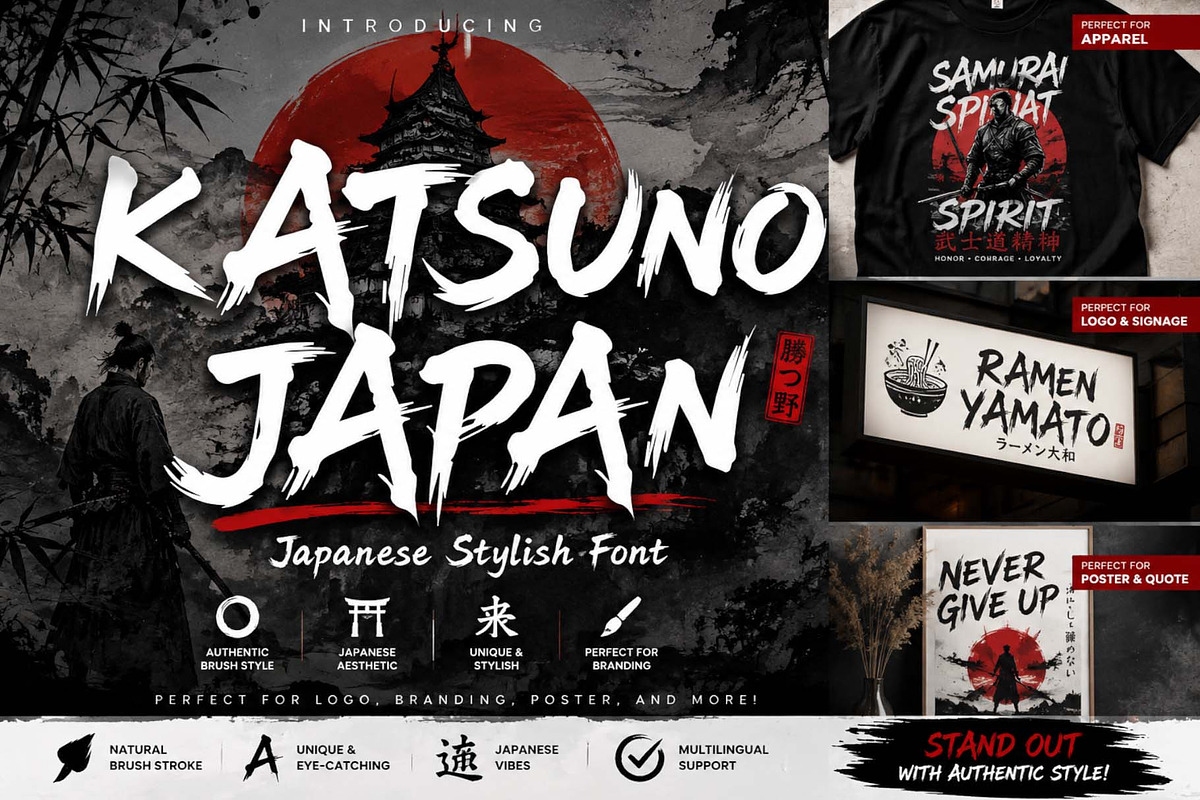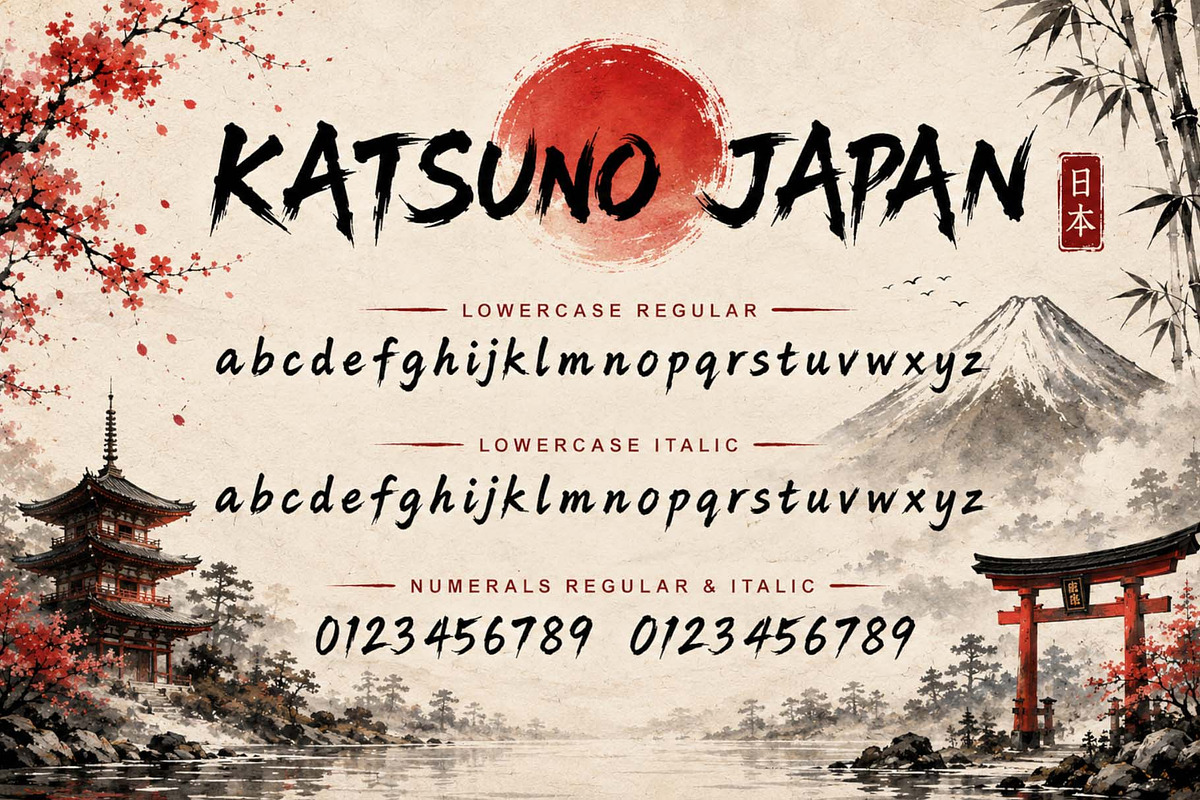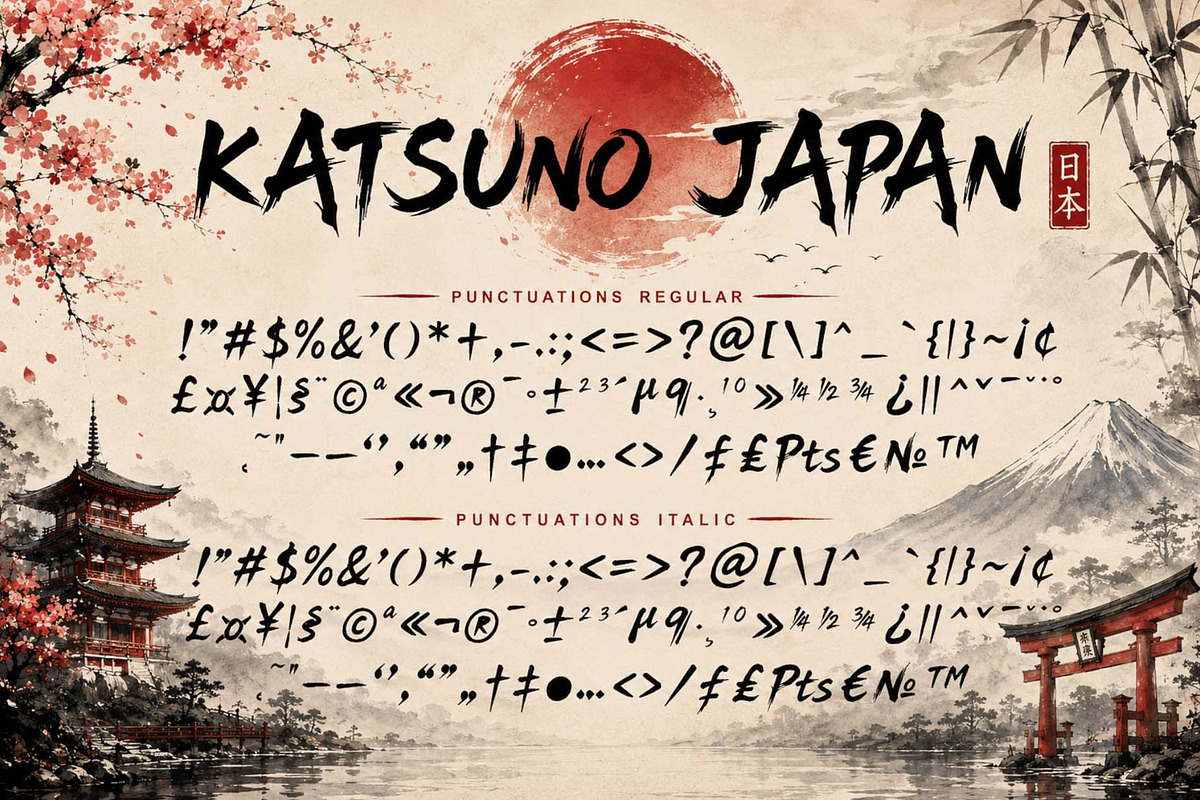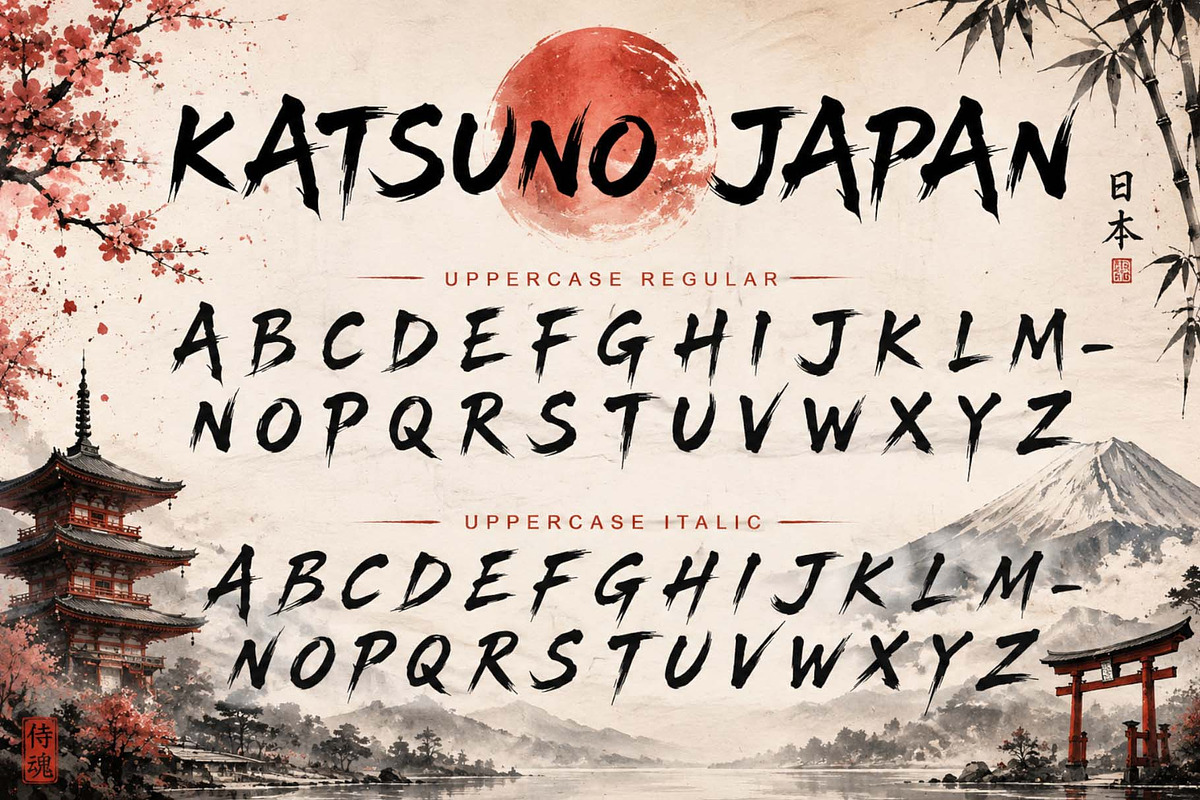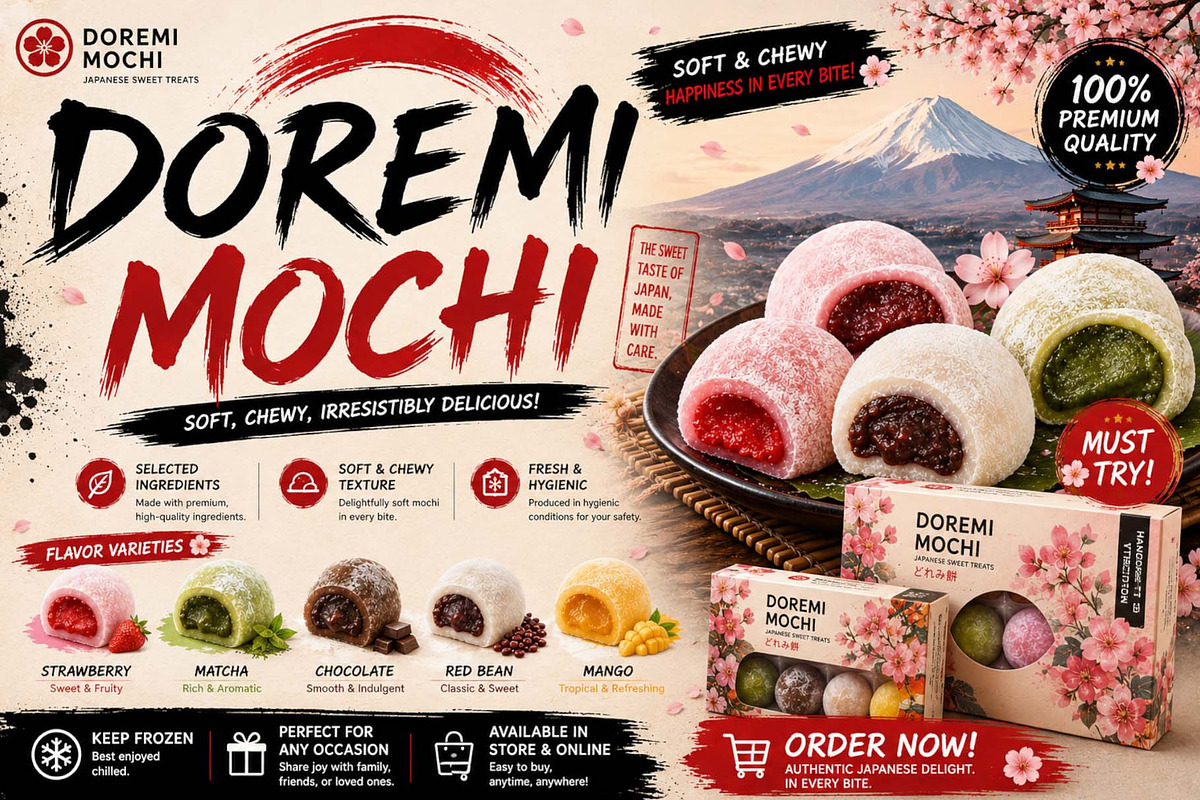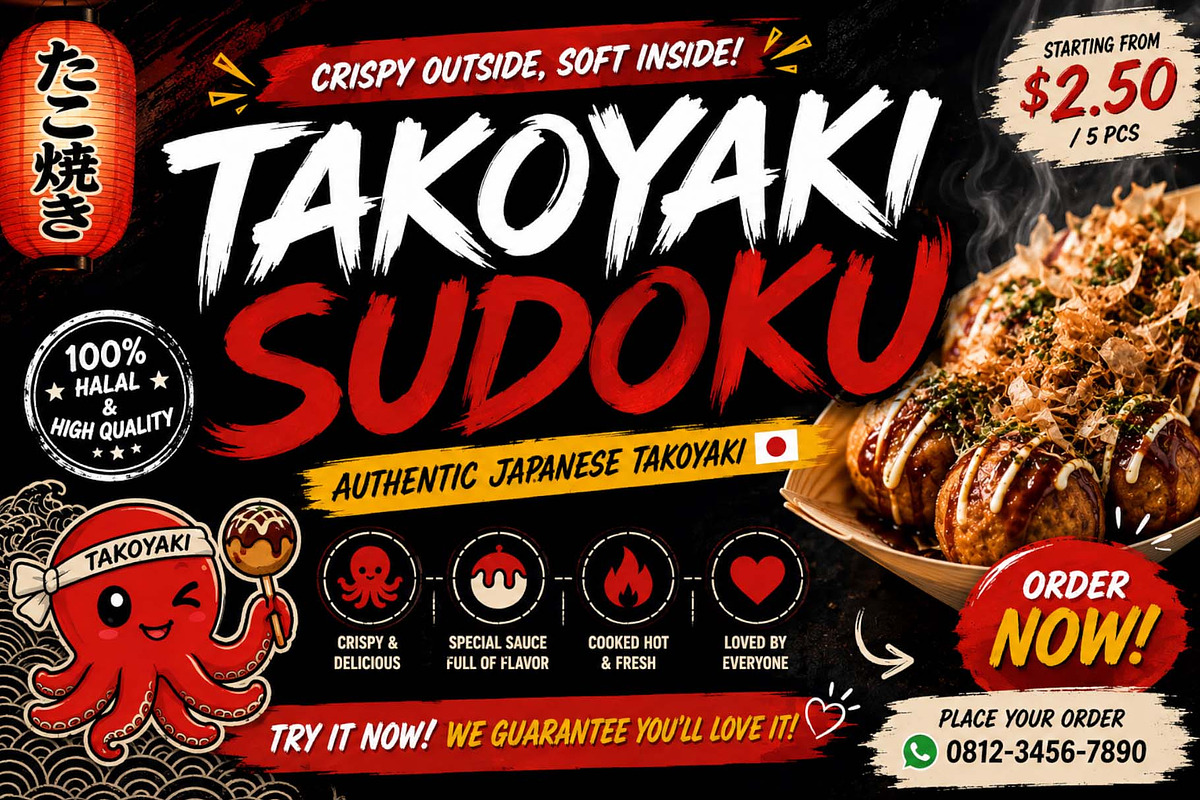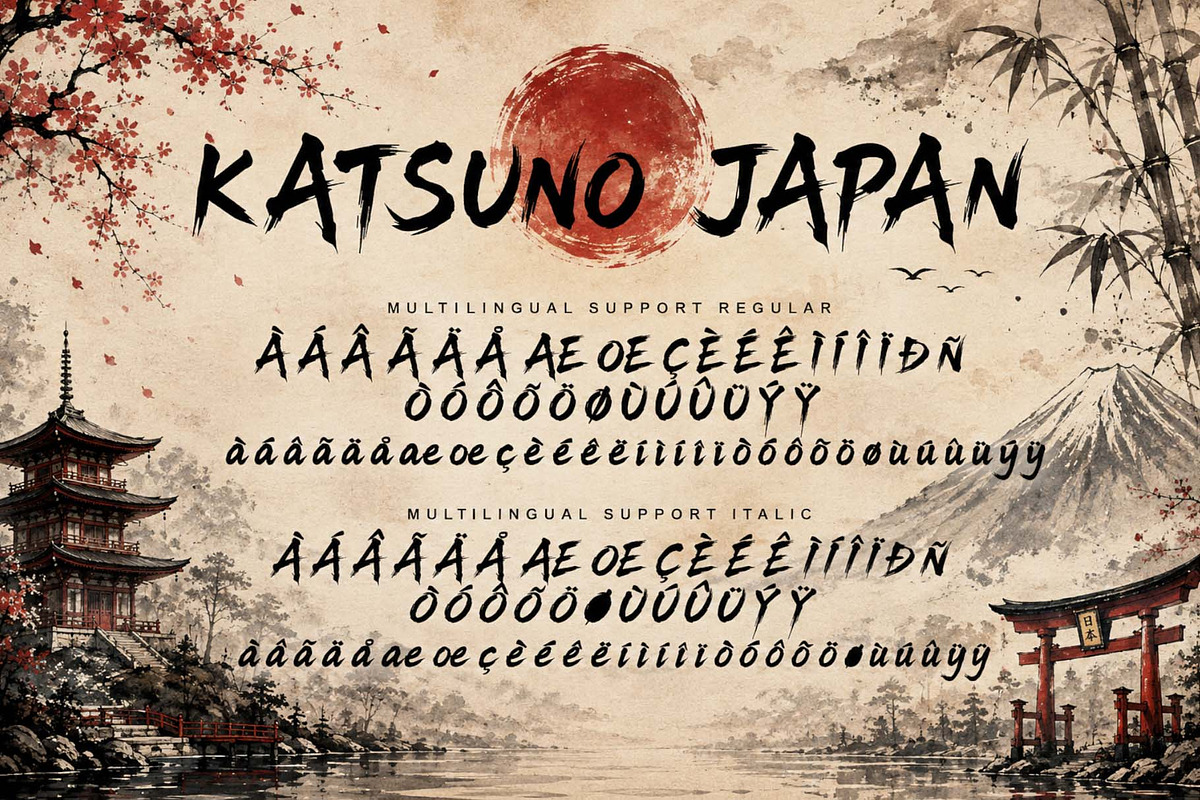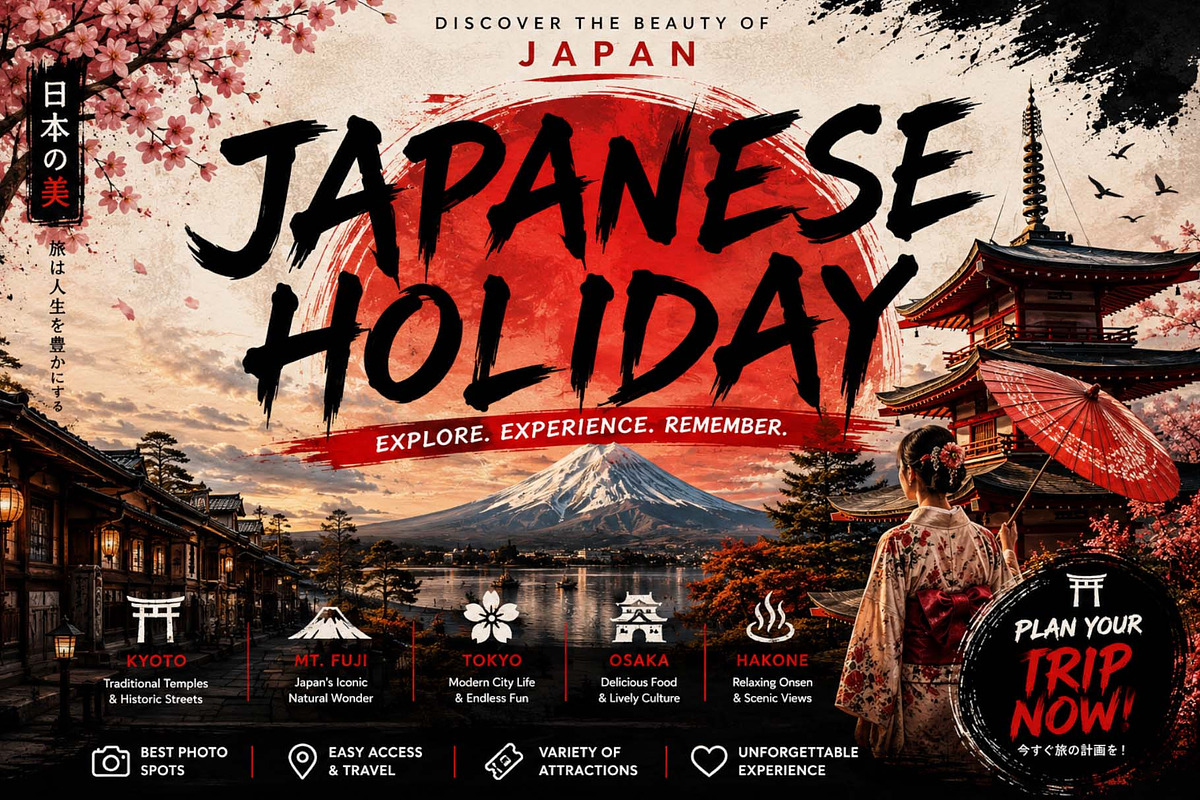
Katsuno Japan
Katsuno Japan features bold, dynamic strokes with an authentic handcrafted feel. Dilengkapi dengan huruf besar, huruf kecil, numerals, punctuiations dan multilingual support. Perfect for logos, branding, posters, apparel, signage, and creative designs. A distinctive display font that brings powerful Japanese-inspired character to every project. Ideal for adding an energetic, artistic touch to modern and traditional designs. Katsuno Japan makes every word stand out with strength, style, and character.